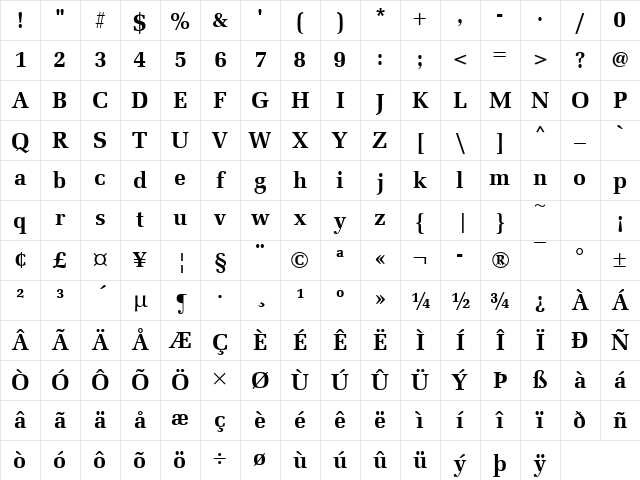
Becker Latino Bold
Becker Latino Family
Design Context for Becker Latino
Becker Latino is a composed and adaptable typeface that performs quietly and consistently across a wide range of design contexts. Its bold stroke weight gives it real presence on the page.